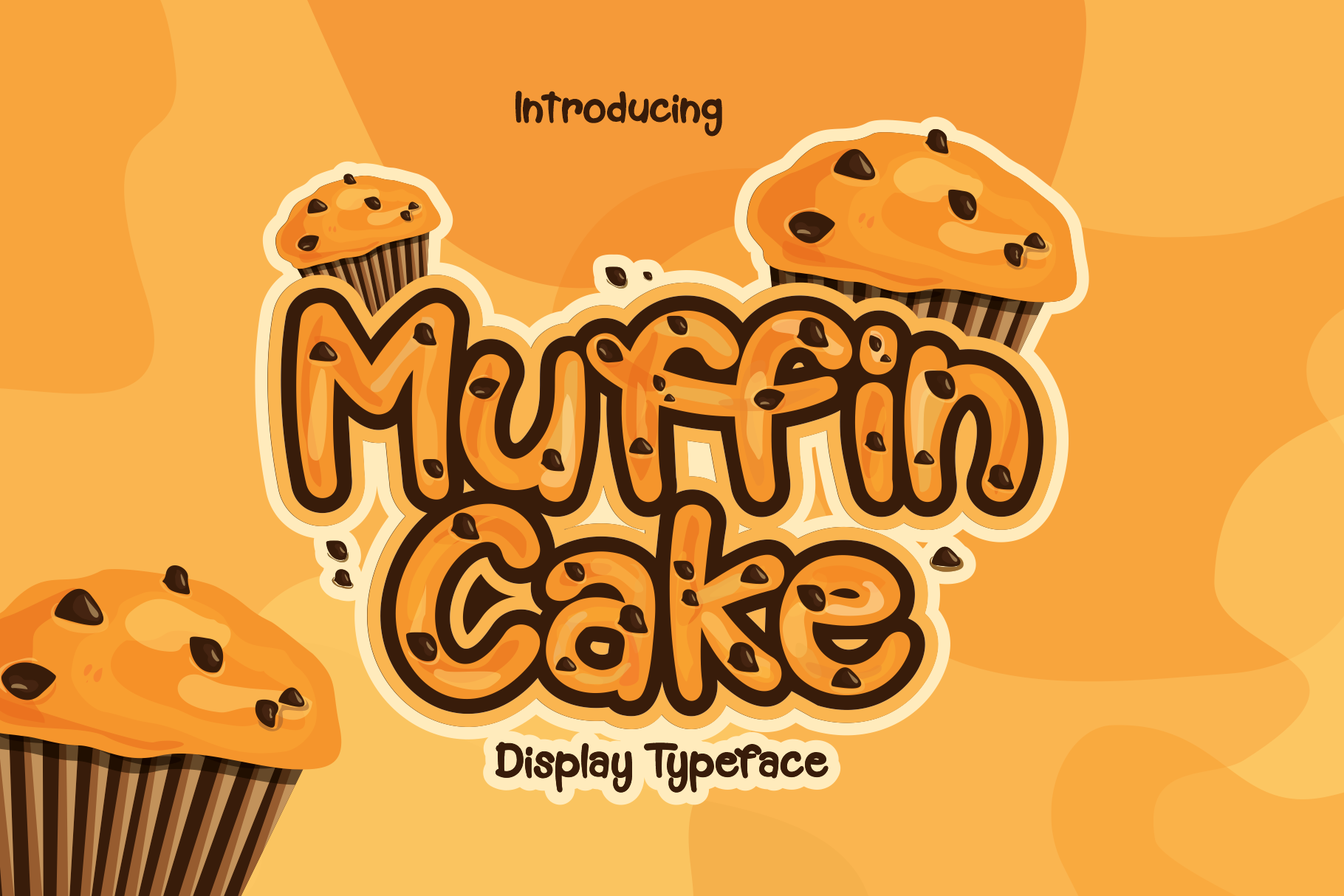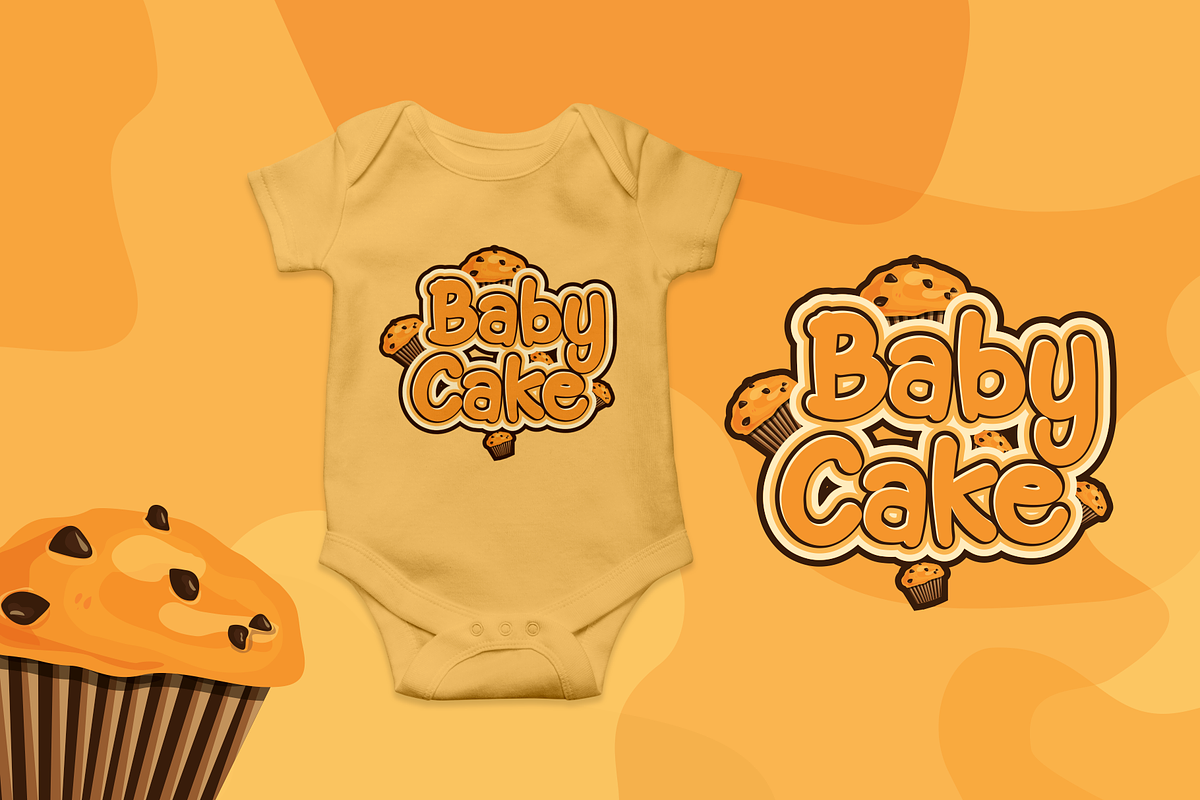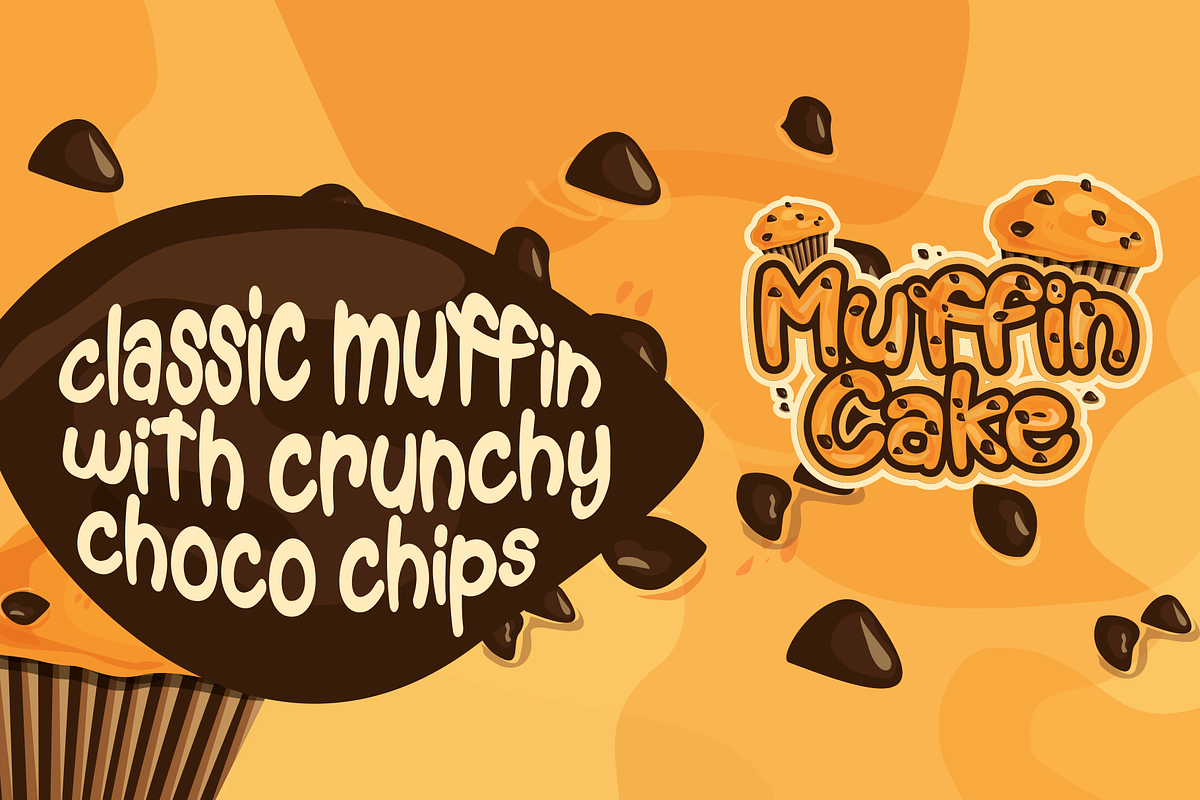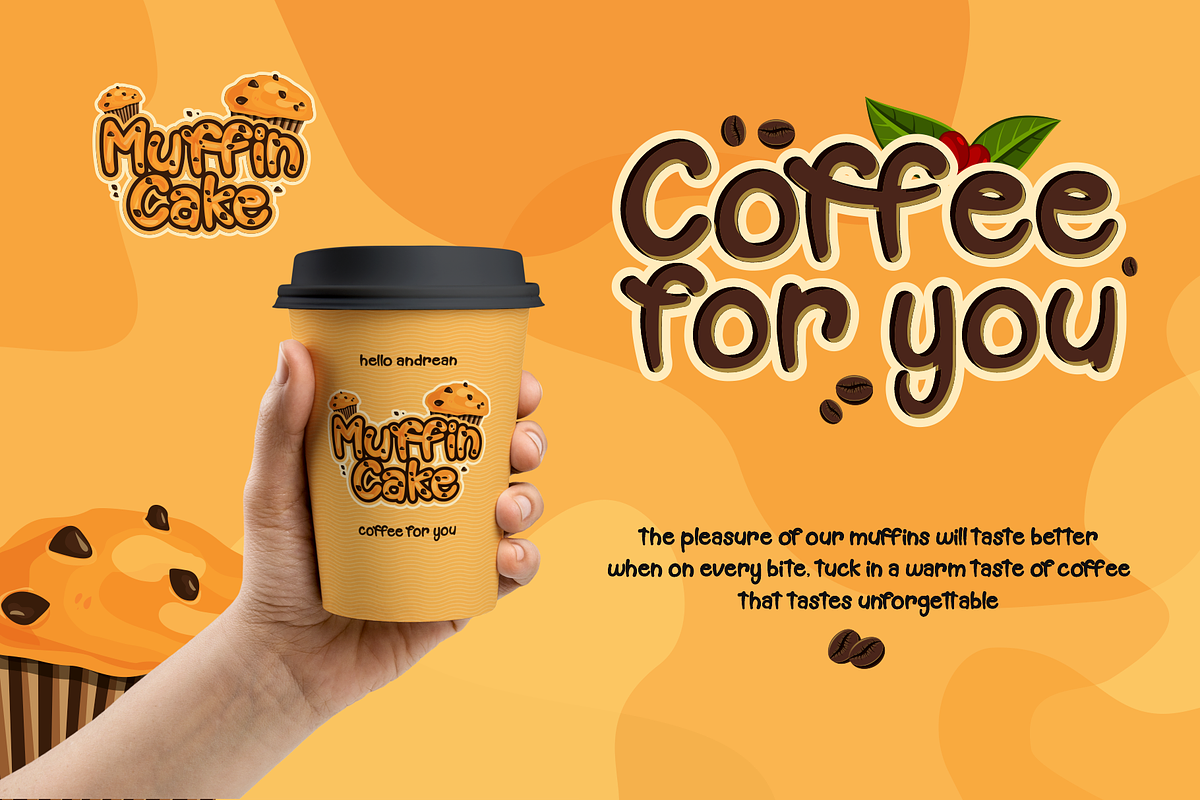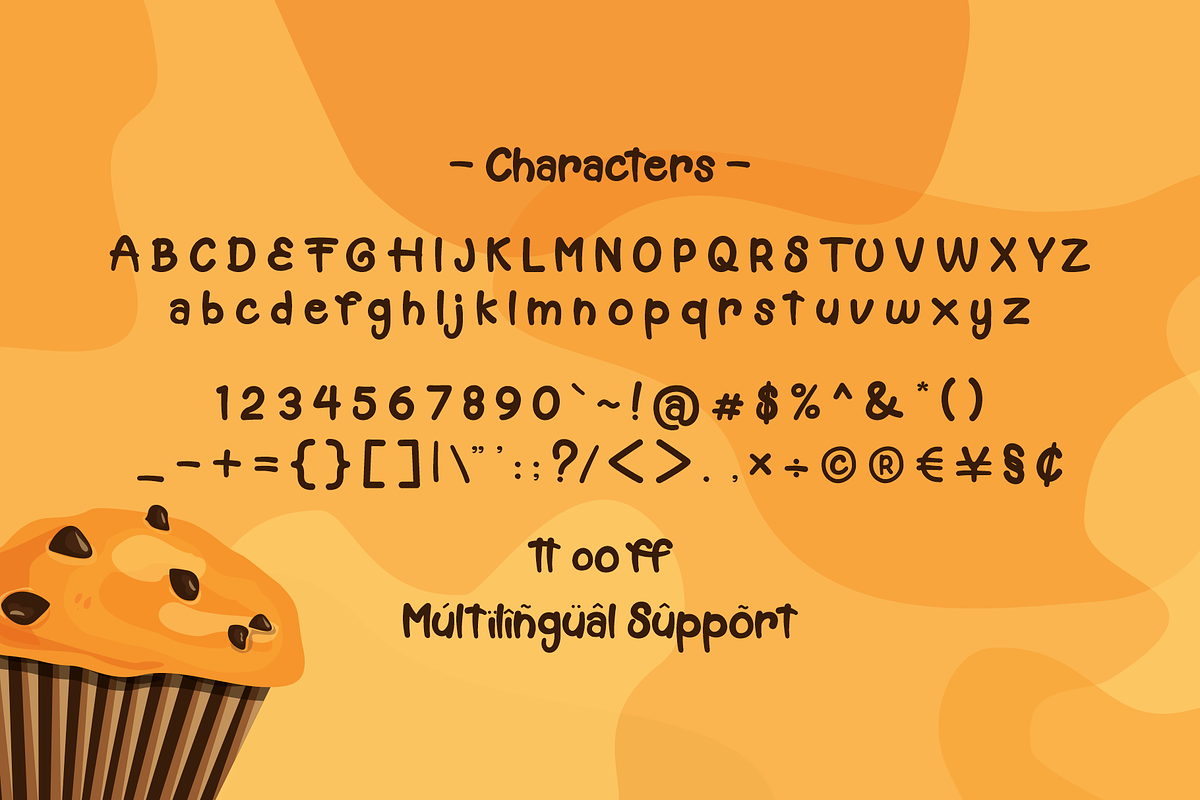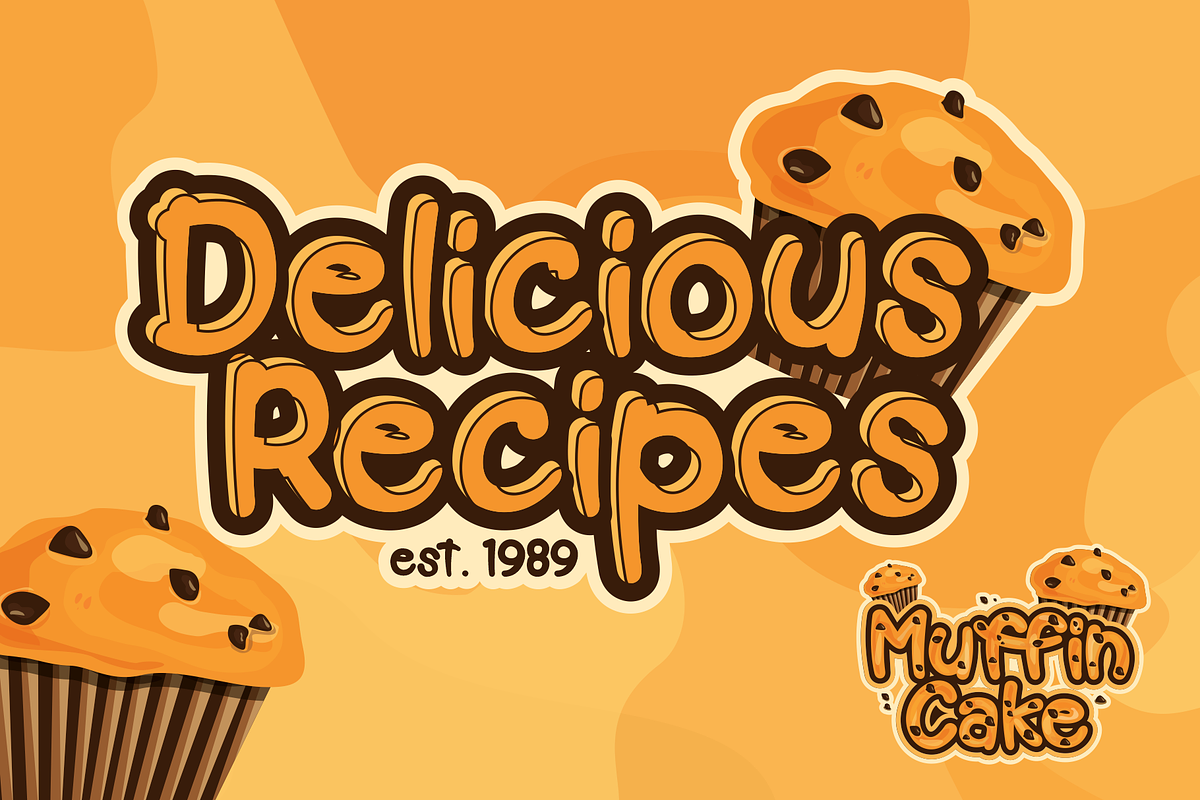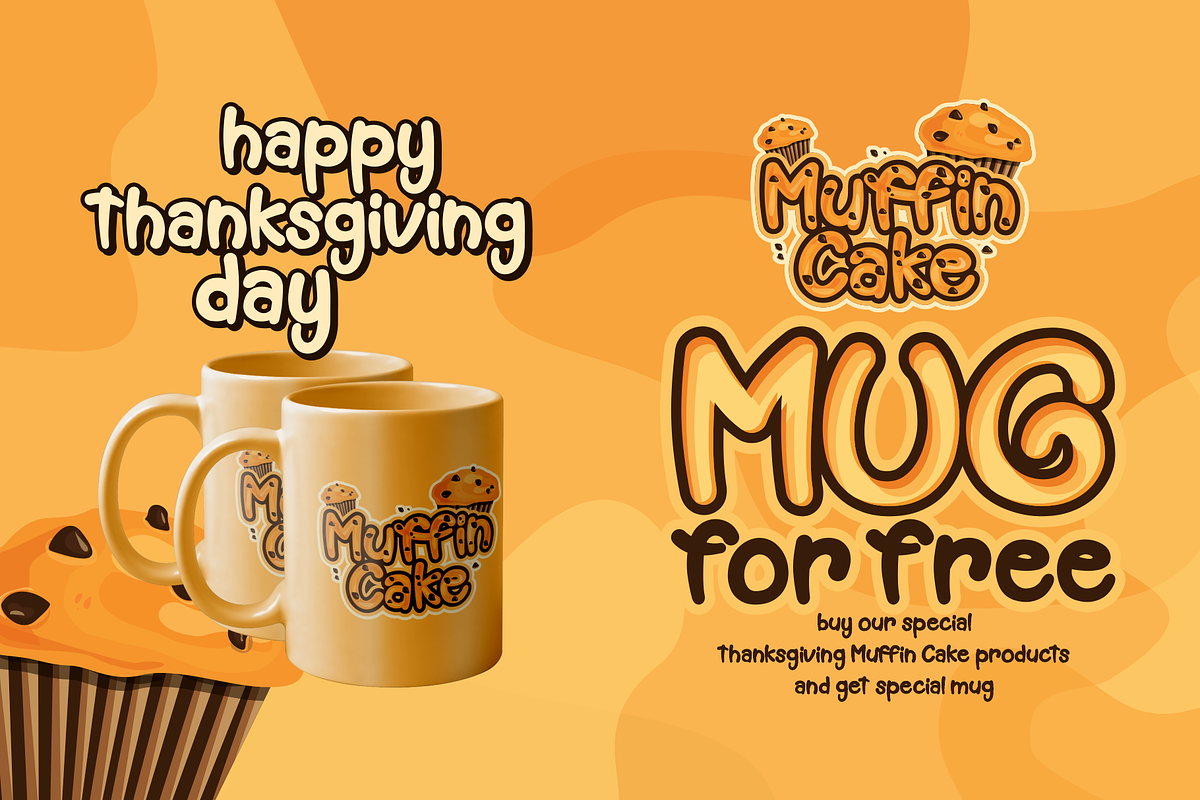
Muffin Cake | Delicious Fonts
Muffin Cake is a unique font suitable for logos and brand names. Especially products related to the world of children. Besides the brand name, this font is also cool when used for school logotypes, games logotype, magazine and children's book covers, toys, t-shirts and various merchandise.